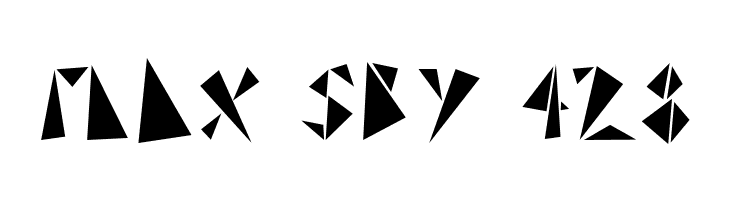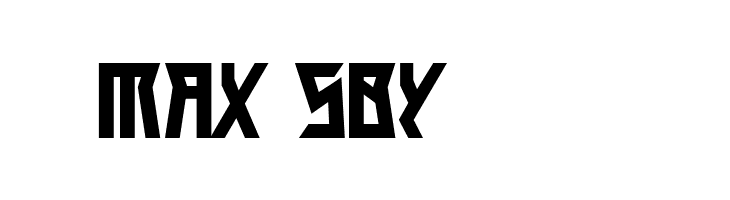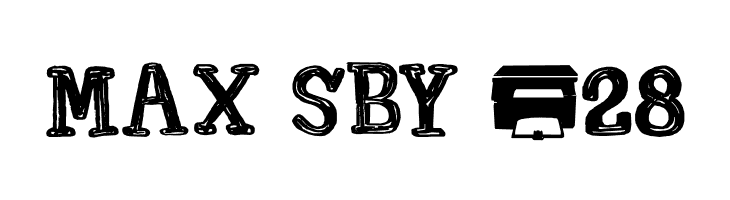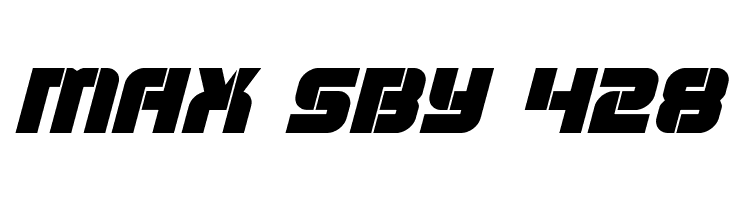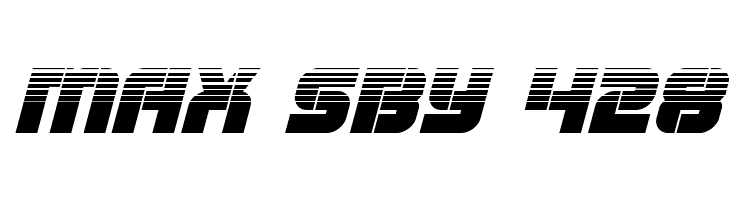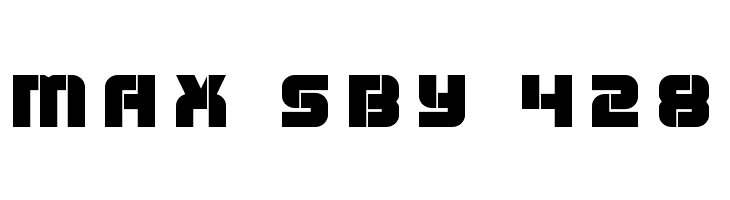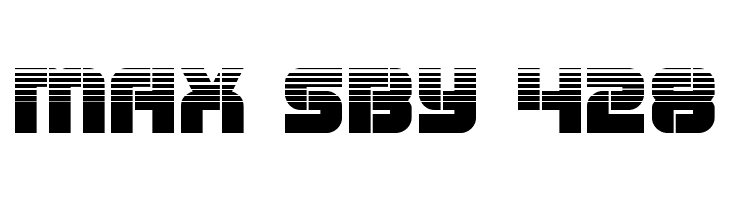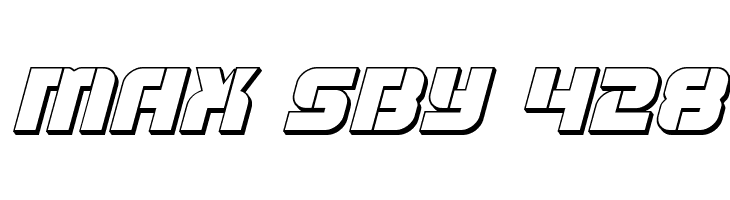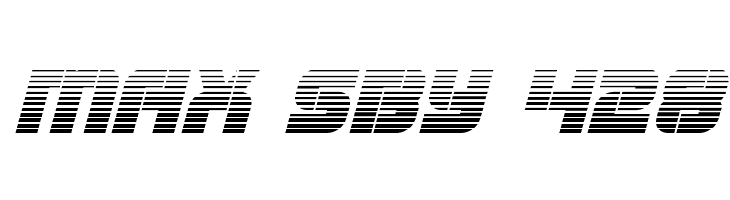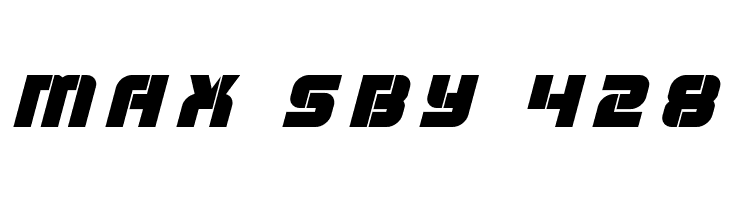
( Gavin Fiorina - www.gavfior.blogspot.com )
A geometric, abstract font with sharp angles and a bold, modern style.
( Gilang Purnama Jaya - Gilang Purnama - geesucks.wordpress.com/ )
( Hanoded - David Kerkhoff - www.hanodedfonts.com )
A bold, textured font with a vintage, hand-drawn aesthetic.
A bold, italicized font with a halftone effect and a futuristic, dynamic style.
A bold, geometric font with an industrial and military-inspired design.
A bold, geometric font with a halftone effect, perfect for modern and edgy designs.
A bold, 3D italic font with a futuristic and dynamic style.
A bold, italicized font with a gradient effect created by horizontal lines.
A bold, geometric, and segmented font with a futuristic, industrial style.
A bold, semi-italic, futuristic font with a geometric and dynamic style.
A dynamic and expressive script font with fluid, elegant strokes.
( Vladimir Nikolic - www.coroflot.com/vladimirnikolic )
A decorative, geometric font with a futuristic, technological design.
( Vladimir Nikolic - www.coroflot.com/vladimirnikolic )
A bold, distressed font with a grunge effect and stencil-like appearance.
( Vladimir Fedotov )
A sophisticated, high-contrast font with elongated, narrow letterforms.
( Volker Busse - F25 Digital Typeface Design - Volker Busse - www.grafikkontor-mitte.de )
A bold, monospaced font with a typewriter-like aesthetic.
( Woodcutter - woodcutter Manero - www.woodcutter.es )
A bold, jagged font with an aggressive, dynamic style.
( Woodcutter - woodcutter Manero - www.woodcutter.es )
A bold, geometric font with a unique textured pattern, ideal for modern designs.
( Xerographer Fonts - Max Infeld - xerographer.blogspot.com )
A whimsical, elegant font with tall, narrow, hand-drawn characters.